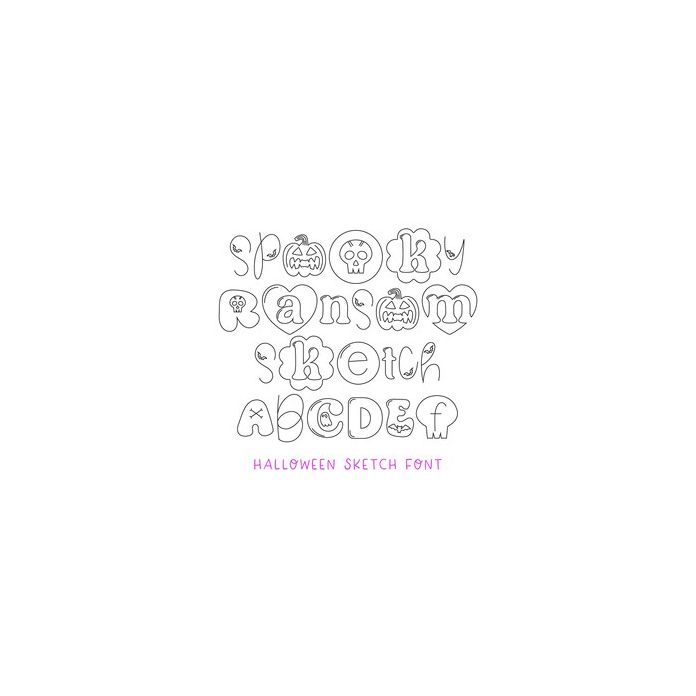
BFC Spooky Ransom Sketch Cute Boho Halloween Doodle Font
Spooky Ransom Sketch is a spooky boho doodled Halloween sketch font. Includes intl characters!